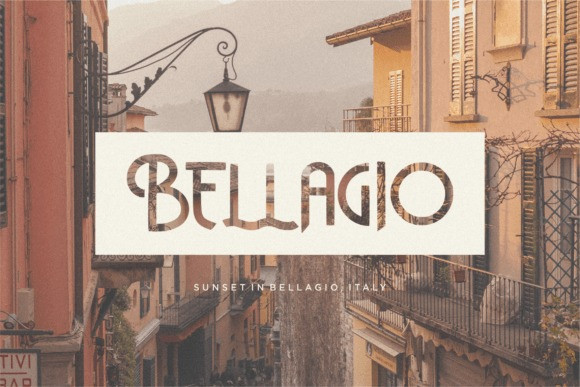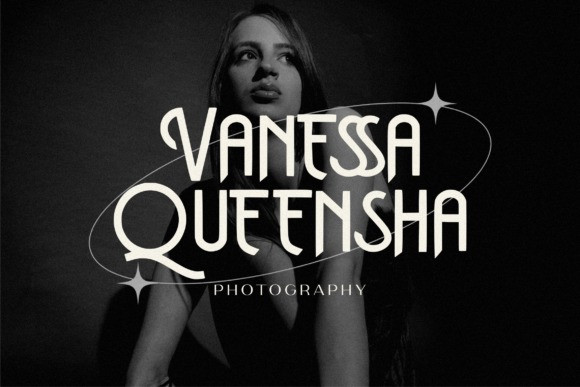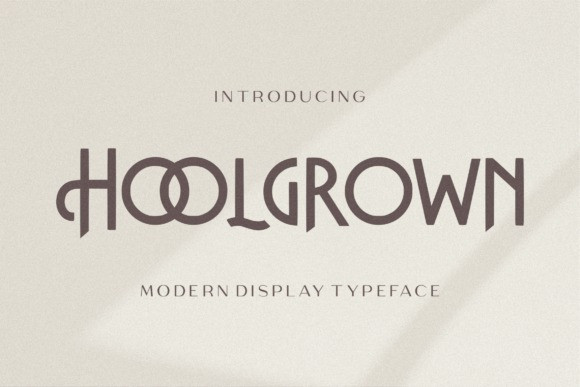
Hoolgrown Font
Hoolgrown Font is a stylish and fashionable display font that embodies elegance and sophistication. Its clean lines and carefully crafted letterforms exude a sense of modernity and grace. Perfect for fashion magazines, luxury branding, or editorial layouts, Hoolgrown adds a touch of refinement to any design. Elevate your projects with this versatile and eye-catching font.